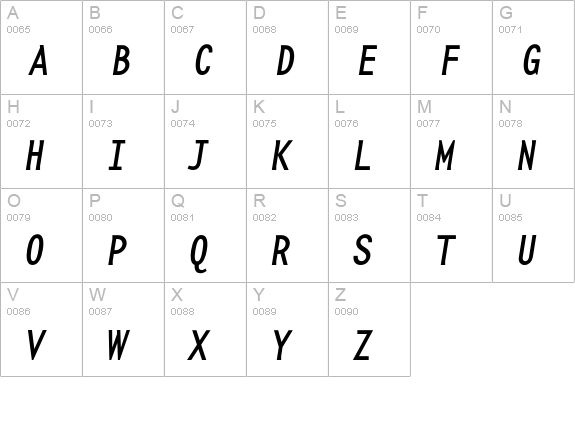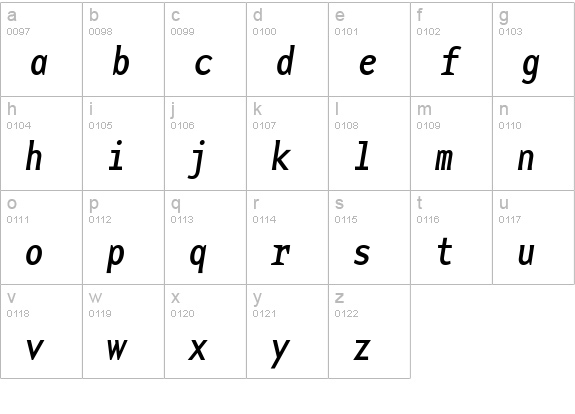
BaseMonoNarrowRegItalic Font Details
BaseMonoNarrowRegItalic is a sleek and modern font that combines the classic elegance of a narrow typeface with a contemporary twist. Its italic style adds a touch of sophistication to any design project, making it perfect for branding, editorial work, and more. The clean lines and sharp angles of BaseMonoNarrowRegItalic give it a bold and dynamic appearance that commands attention. Best of all, BaseMonoNarrowRegItalic is available for free download at FontsMarket.com. This means that you can easily access this stylish and versatile font to enhance your creative projects without any cost. Whether you're designing a website, creating a logo, or working on a print publication, BaseMonoNarrowRegItalic is sure to make a statement and elevate your work to the next level. Download it today and see the difference this striking font can make in your designs.